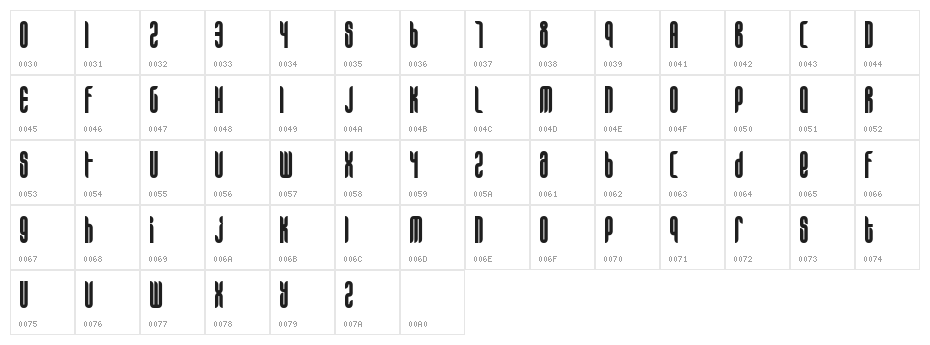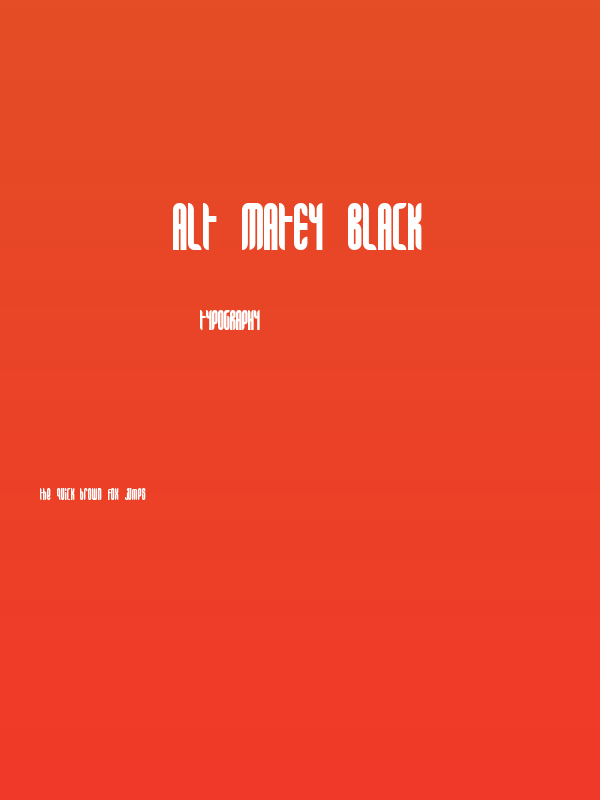
Alt Matey Black Font
Alt Matey Black Description
This font features a bold and striking design with a modern, geometric aesthetic. The characters are tall and narrow, with a consistent stroke width that gives them a strong presence. The uppercase and lowercase letters maintain a uniform style, with rounded edges and a slight curvature that adds a touch of softness to the otherwise rigid structure. The numbers and special characters follow the same design principles, ensuring a cohesive look across all elements. This font is ideal for making a bold statement in any design project.